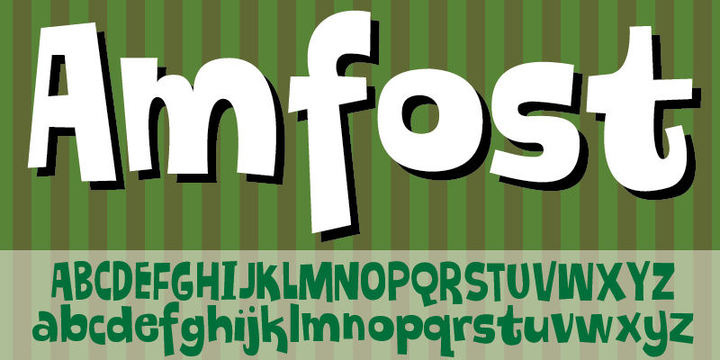
Amfost Font
This bold typeface is perfect for sports branding, fitness logos, athletic merchandise, gym signage, competition graphics, energy drink packaging, outdoor adventure brands, team uniforms, and dynamic action-oriented design projects.
What makes this font exciting is its athletic power combined with competitive energy, offering designers a dynamic typeface that captures the intensity of sports competition while delivering muscular strength and championship-level visual impact.
The Amfost font family includes regular, bold, condensed, extended, and impact variations, providing complete athletic design solutions for creating powerful sports visual identities.
Whether you're developing competitive sports brands or crafting high-energy fitness experiences, Amfost Font Free Download brings exceptional athletic atmosphere and competitive authenticity to every application. This powerful typeface combines sports typography traditions with contemporary fitness design, creating letterforms that inspire action and performance. The font's muscular construction and competition-ready details make it perfect for brands seeking immediate athletic recognition.
Amfost Font features carefully engineered athletic styling with authentic competitive character that conveys genuine sports expertise. Each character has been designed for maximum impact and energy, with strong proportions and dynamic elements that enhance the powerful aesthetic. The font's athletic qualities make it particularly effective for fitness brands and sports applications.
Professional designers choose Amfost Font for projects requiring authentic athletic credibility and competitive atmosphere. Its sports heritage makes it exceptionally well-suited for fitness centers, sports teams, and active lifestyle brands. The font's versatile athletic variations allow designers to control the competitive intensity, from subtle sports elegance to full championship power.
The complete Amfost Font package offers extensive athletic ornaments and sports decorative elements that enhance the competitive aesthetic. Advanced performance features allow designers to create complex athletic effects with multiple sports-inspired options. This comprehensive athletic toolkit ensures designers have everything needed to create authentic sports communications that celebrate the relentless pursuit of excellence and competitive achievement.